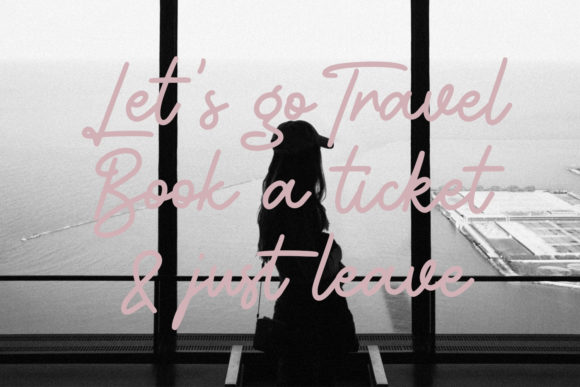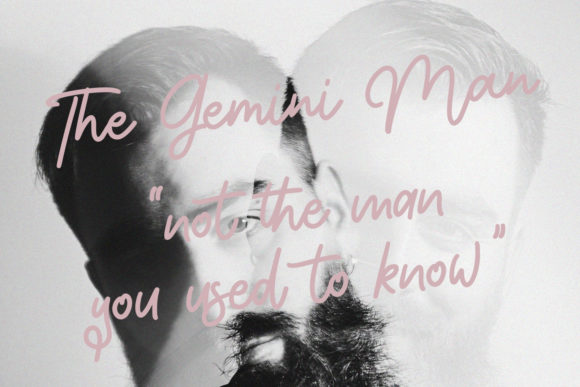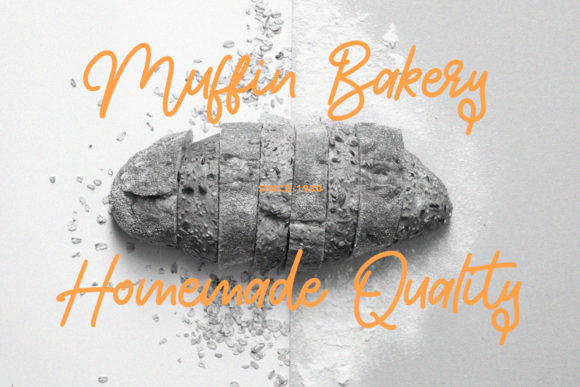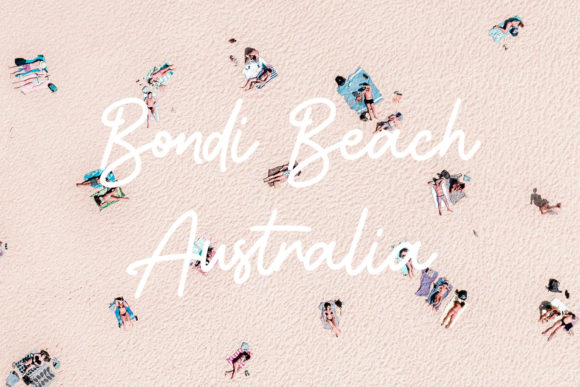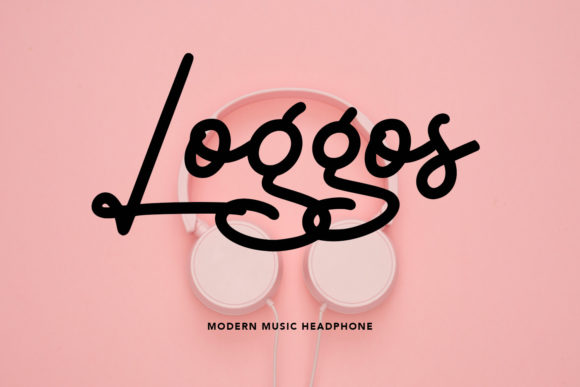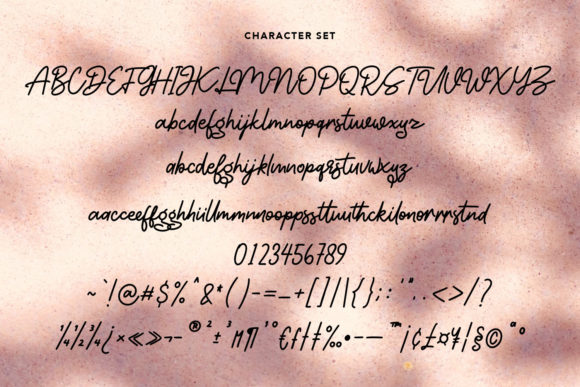
Introducing Blammingst Font: Elevate Your Designs with Elegance and Sophistication
In the world of typography, a well-crafted font can make all the difference in elevating your design projects from ordinary to extraordinary. If you’re a designer, craftsperson, or simply someone who appreciates the art of beautiful lettering, you’re in luck. Blammingst Font is an elegant script font that brings a touch of timeless sophistication to your creations, inspired by the classics yet infused with a modern twist.
The Essence of Blammingst Font
Blammingst Font is not just any script font; it’s a meticulously designed typeface that embodies the perfect balance between classic calligraphy and contemporary style. Its creator aimed to produce a font that is neither too thin nor too thick, ensuring that it remains versatile and highly legible across various applications. This balance is what sets Blammingst apart, making it an excellent choice for projects that demand a touch of elegance without sacrificing readability.
Key Features of Blammingst Font
- Elegant and Contemporary: Blammingst strikes the perfect chord between timeless elegance and modern aesthetics. Its design ensures that your projects look up-to-date and sophisticated.
- Balanced and Varied: The font boasts a range of weights and styles, providing you with the flexibility to use it across different mediums and applications, from digital platforms to print materials.
- Inspired by Timeless Classic Calligraphy: Blammingst draws inspiration from traditional calligraphy, offering beautiful strokes and fluid connections that can add a personal touch to your designs.
- Impeccable Form: With attention to detail, Blammingst ensures that every letterform is meticulously crafted, contributing to the overall harmony and beauty of your typography.
Who Can Benefit from Blammingst Font?
Blammingst Font is a versatile tool that can benefit a wide range of users:
- Graphic Designers: Looking for a sophisticated script font to add a touch of elegance to branding projects, logos, and marketing materials.
- Crafters and Artists: Seeking unique and beautiful typography for handmade products, such as wedding invitations, packaging, and art prints.
- Digital Content Creators: Aiming to enhance the visual appeal of their digital content, including blog posts, social media graphics, and video titles.
- Event Planners: Needing stylish and readable fonts for event branding, such as conferences, weddings, and parties.
How to Use Blammingst Font Effectively
To make the most out of Blammingst Font, consider the following tips:
- Pair it with Simple Fonts: Combine Blammingst with clean, sans-serif fonts for body text to create a striking contrast and enhance readability.
- Experiment with Sizes: Play with different font sizes to emphasize certain words or phrases, adding depth and interest to your designs.
- Utilize it for Headings and Titles: Blammingst shines in headings and titles, where its elegant strokes can make a significant impact.
- Consider the Color: Choose colors that complement the tone of your project. Blammingst works well with both vibrant and muted palettes.
Blammingst Font is more than just a typeface; it’s a design tool that can elevate your projects with its elegant and contemporary charm. Whether you’re a professional designer or a crafty individual, this font offers the versatility and beauty you need to create stunning pieces. By incorporating Blammingst into your typography arsenal, you’re one step closer to producing designs that are not only visually appealing but also timeless.